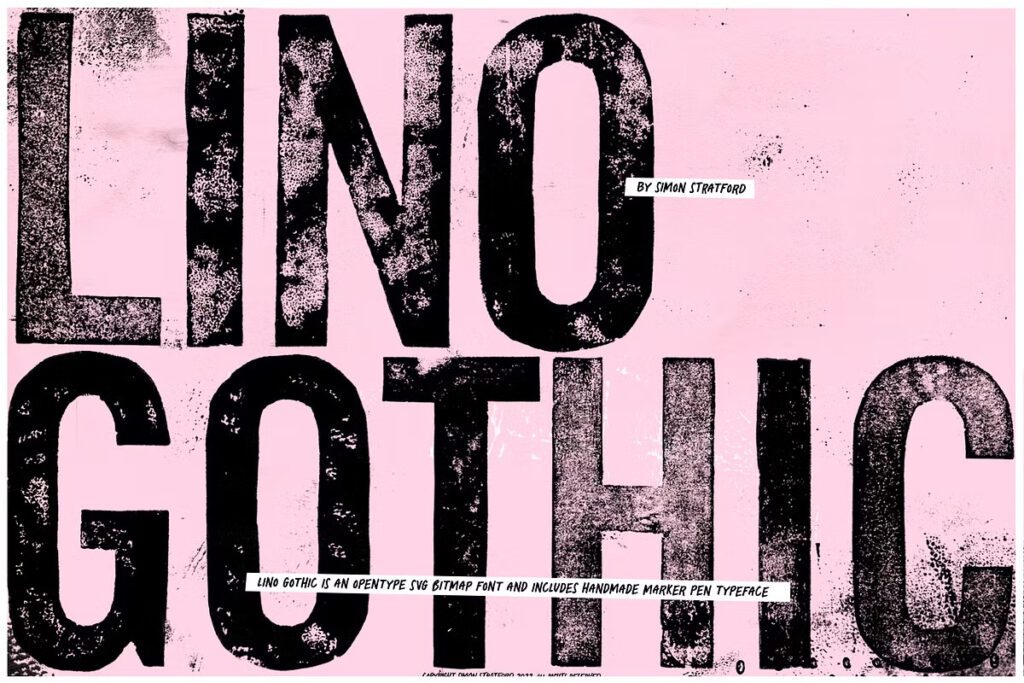
Lino Gothic: The Perfect Font for a Vintage, Handcrafted Look
If you’re searching for a font that adds a handcrafted, vintage touch to your designs, Lino Gothic is the perfect choice. This display font brings the authentic texture of letterpress printing to life, creating a unique, weathered look that will make your projects stand out. With a combination of bitmap, vector, and pen fonts, Lino Gothic offers endless creative possibilities for both print and digital projects.
Why Lino Gothic is a Must-Have for Designers
1. Authentic Letterpress TextureLino Gothic is unlike any ordinary display font. Created from actual linocut prints, it has been hand-printed on paper to achieve a weathered, vintage woodtype effect. This texture adds a layer of authenticity that’s perfect for logos, branding, posters, and more.
2. Multiple Font VariantsLino Gothic comes in three styles:
Lino Gothic Pen: A hand-drawn script font with marker pen details.
Lino Gothic SVG: A bitmap font with full transparency and thousands of shades, giving it a unique depth and detail.
Lino Gothic Vector: A traditional vector typeface for maximum versatility.
Each uppercase character includes five alternative versions, allowing you to mix and match for a truly unique letterpress look.
4. Designed for Modern and Retro ProjectsWith its blend of vintage letterpress aesthetics and modern bitmap technology, Lino Gothic is a versatile font that works well for various projects, from retro-themed posters to modern branding and web design. Its raw, hand-printed feel adds a touch of uniqueness and charm that’s hard to find in traditional digital fonts.
What’s Included in Lino Gothic?
Uppercase characters with five alternatives for each letter.
Basic numbers, punctuation, and symbols.
Ideal for Western, Central, and South Eastern European Languages
Lino Gothic supports a wide range of languages, making it a great option for global projects.
Perfect for a Wide Range of Creative Uses
Whether you’re creating a logo, designing a poster, or adding a touch of retro charm to your branding, Lino Gothic offers a unique, handcrafted aesthetic that makes your projects memorable. The versatility of its multiple font formats ensures it can adapt to any design need.
Bring an authentic, handcrafted feel to your next project with Lino Gothic. Whether you’re creating something modern with a vintage twist or fully embracing retro design, this font will give your work an artistic edge that stands out.